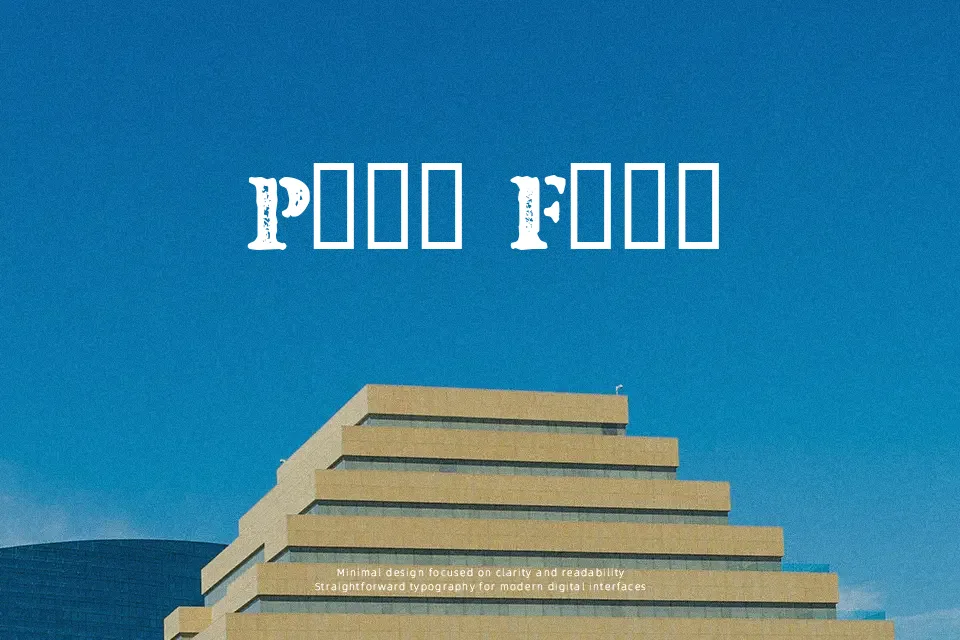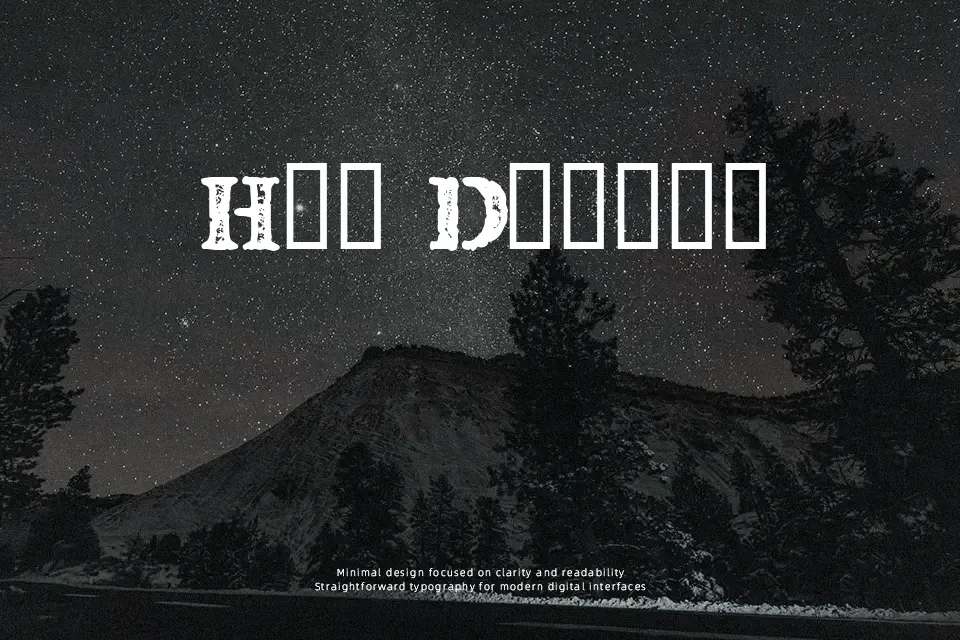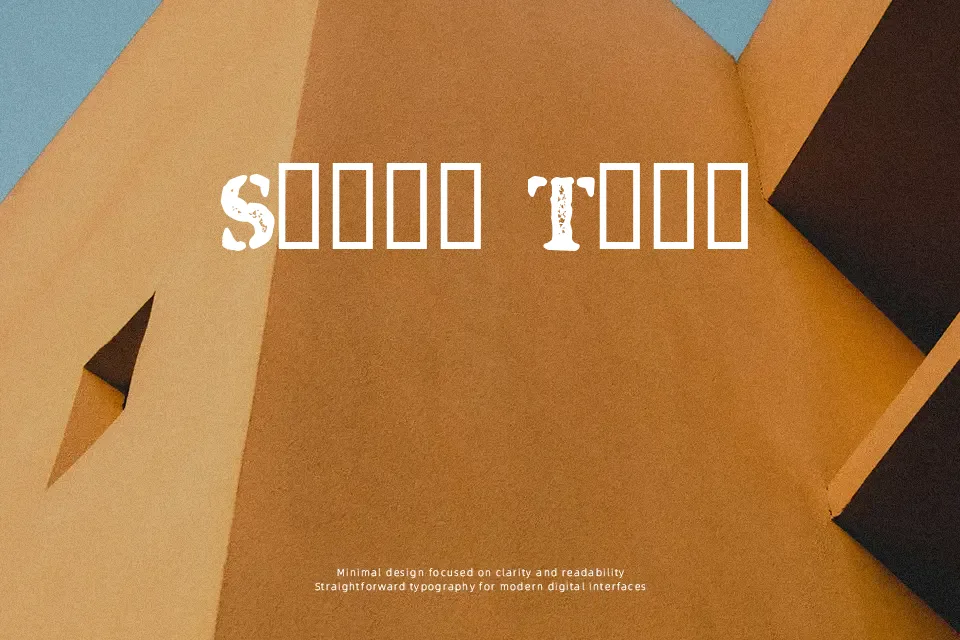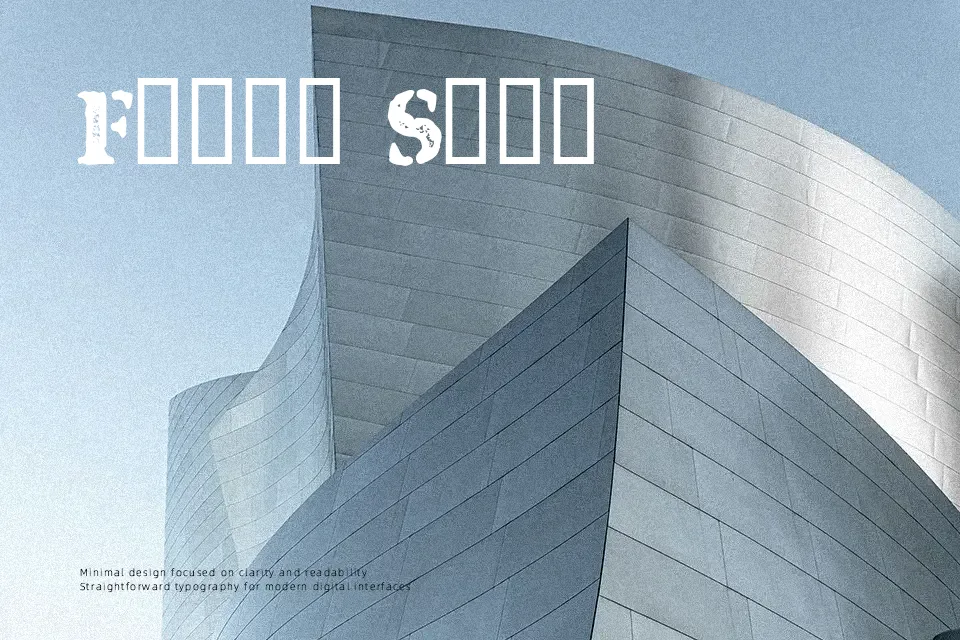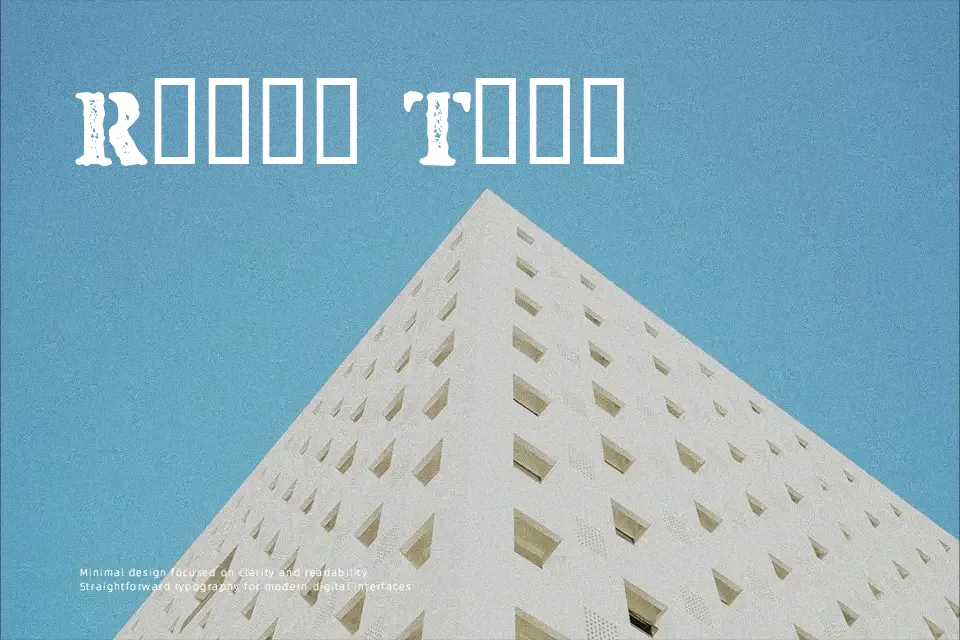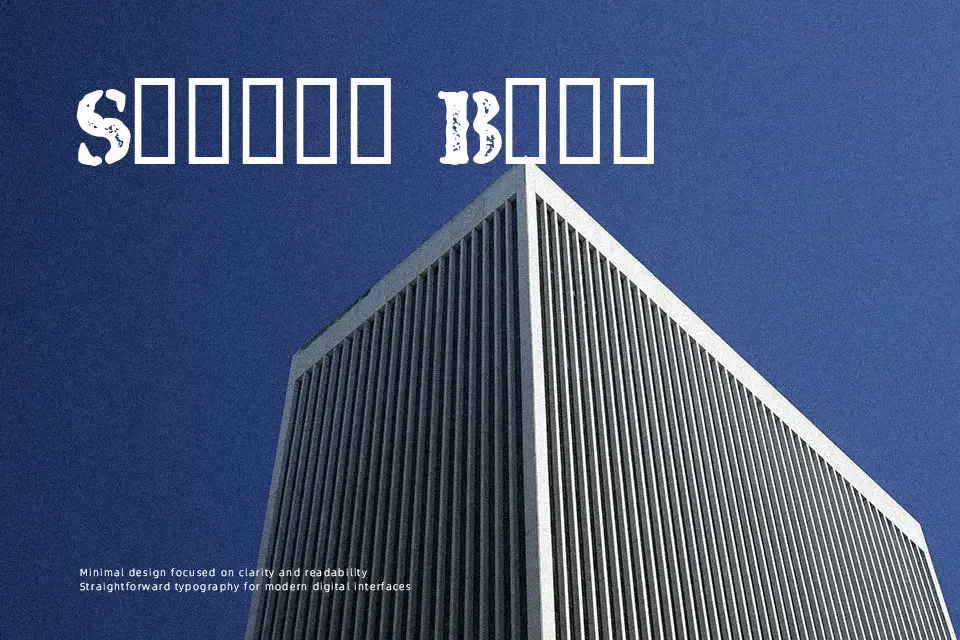
CF Quebec Stamp Font
Designed by Cloutierfontes
CF Quebec Stamp Font is visually dominated by thick vertical stems, sharp breaks, and eroded stamp edges that evoke utility marking. Built with consistent geometric proportions and solid block silhouettes, the typeface maintains rigid horizontal alignment across uppercase character sets. Moderate letter spacing gives each glyph sufficient breathing room, preventing the heavy, textured fills from blending together in medium and large display environments. The letterforms remain easy to distinguish when isolated in compact title lines or bold product badges. However, the abrasive distressing and interrupted stencil contours quickly reduce reading comfort in paragraph blocks, making the design ill-suited for continuous body text or miniature interface labels.